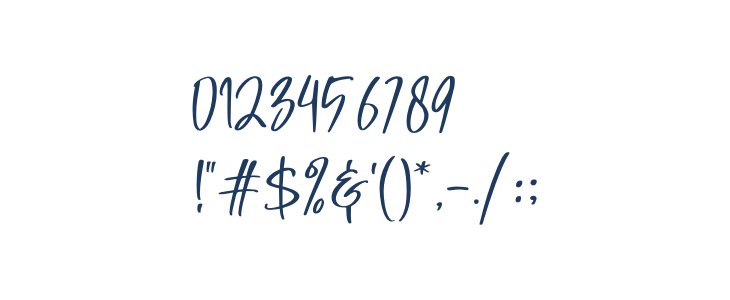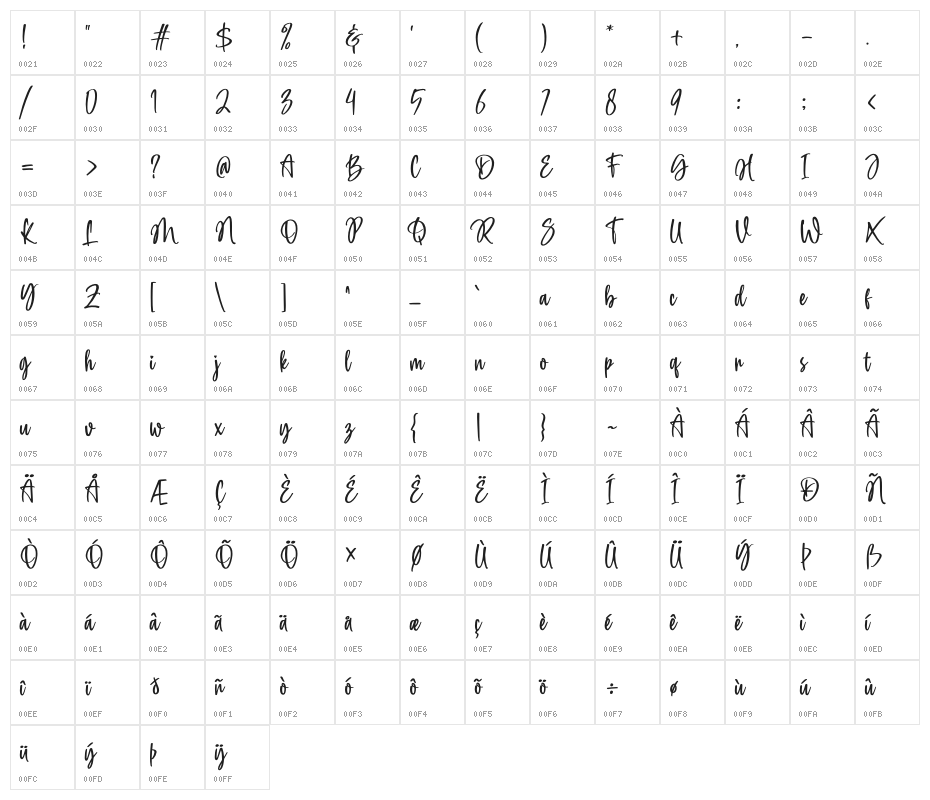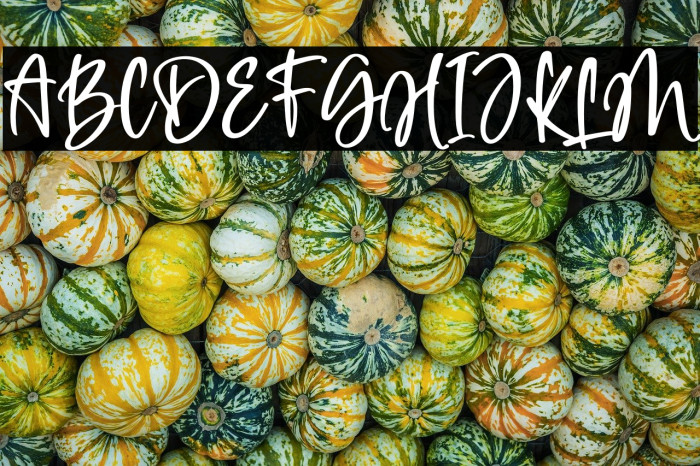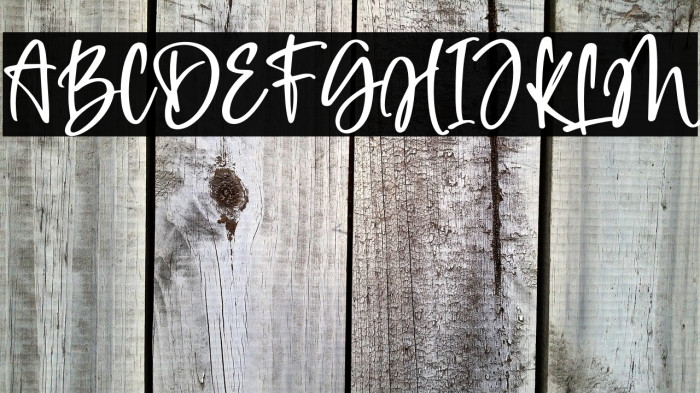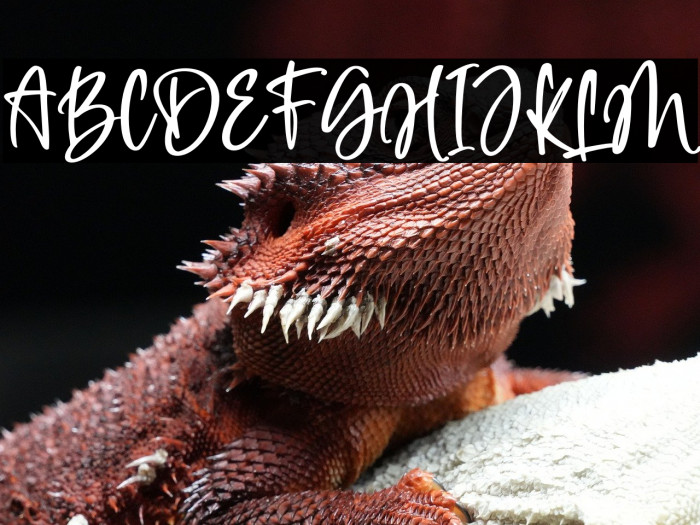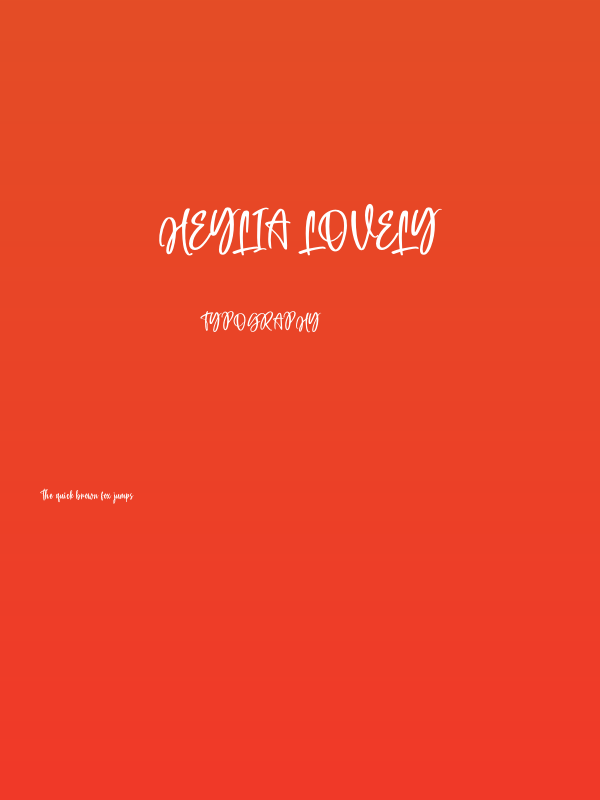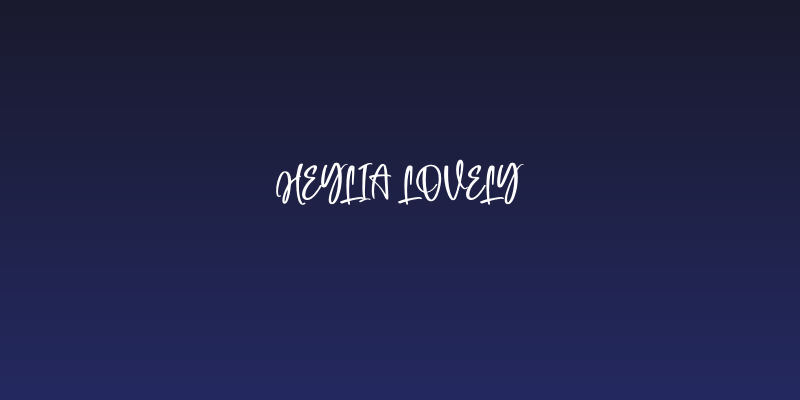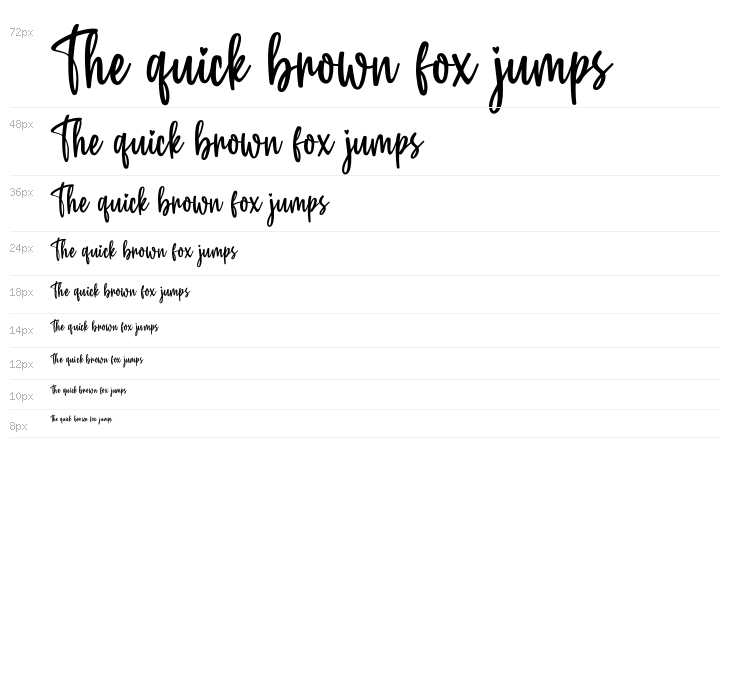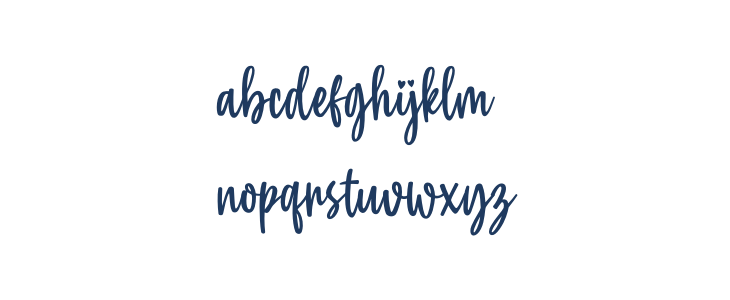
Heylia Lovely Font
Heylia Lovely Description
This font exudes a playful and casual handwritten style, characterized by its flowing and connected letterforms. The uppercase letters are bold and dynamic, with a slight slant that adds a sense of movement and energy. The lowercase letters maintain a consistent style, offering a harmonious blend with the uppercase. Numbers and special characters are crafted with the same fluidity, ensuring a cohesive look across all elements. The font's strokes vary in thickness, providing a medium contrast that enhances readability while maintaining its artistic flair. It's perfect for projects that require a personal touch, such as invitations, greeting cards, or branding materials that aim to convey warmth and approachability.